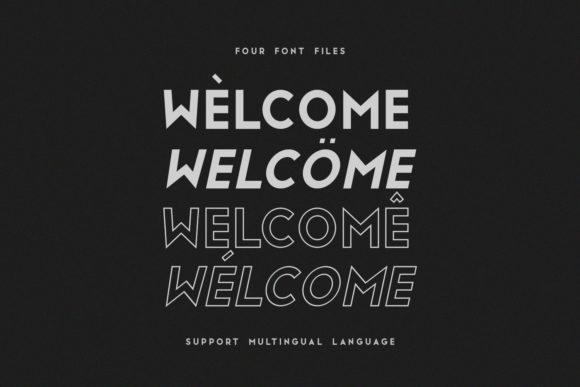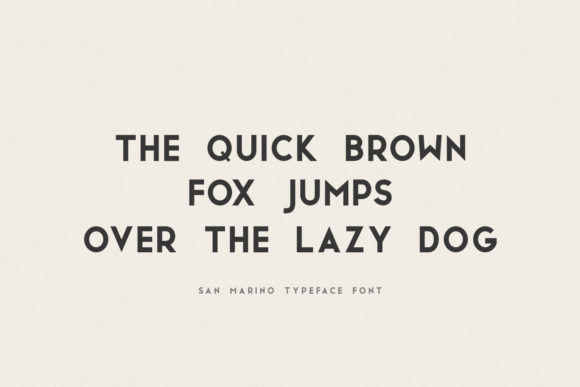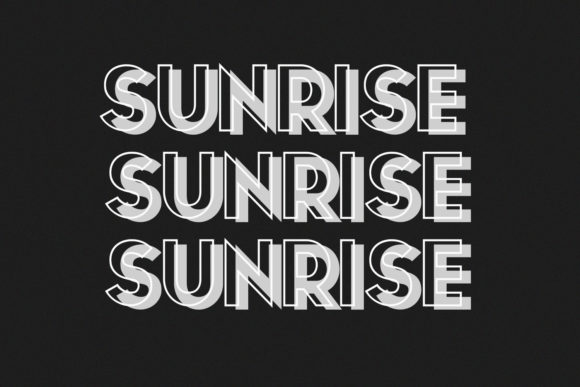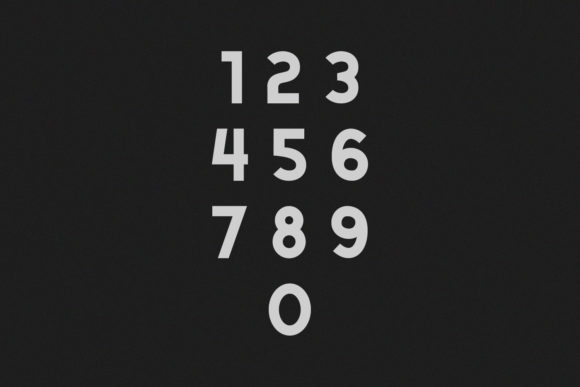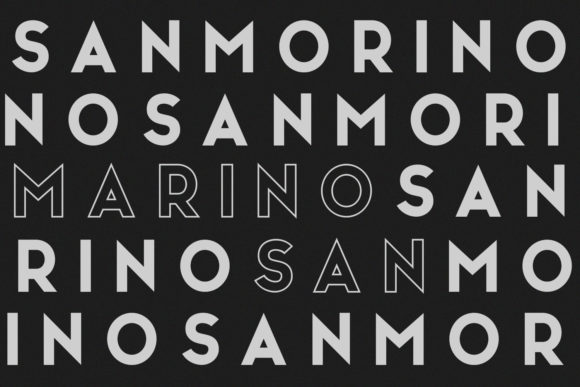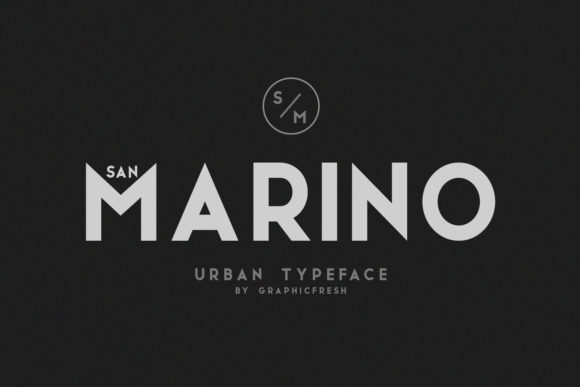
Introduction to San Marino Family Font
The San Marino is an original sans serif family.
| 👤 Author | Graphicfresh |
It was improved with geometric shapes and exudes an image of modernity, stylishness, and elegance It comes in four styles which can be combined perfectly and give you the opportunity to create multiple unique designs in an instant.
Key Features of San Marino Family Font